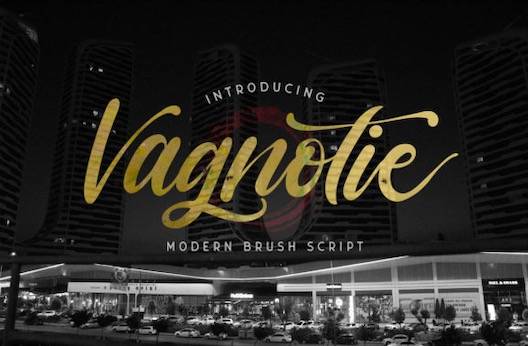
Vagnotie Modern Script Font
It’s time to introduce you to my great font Vagnotie, a brush font released by StringLabs. This script font is refined, saucy, a bit shabby. Vagnotie font is really a new brush script typeface.
It has a modern brush aesthetic that is extremely popular. The Vagnotie was designed to give designers a premium alternative which will help them achieve that lettering feels we all love.